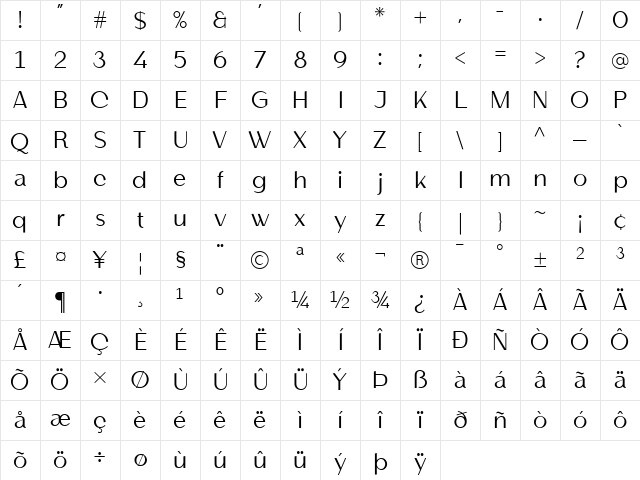
Helnore Regular
Design Context for Helnore
Helnore is a composed and adaptable typeface that performs quietly and consistently across a wide range of design contexts.